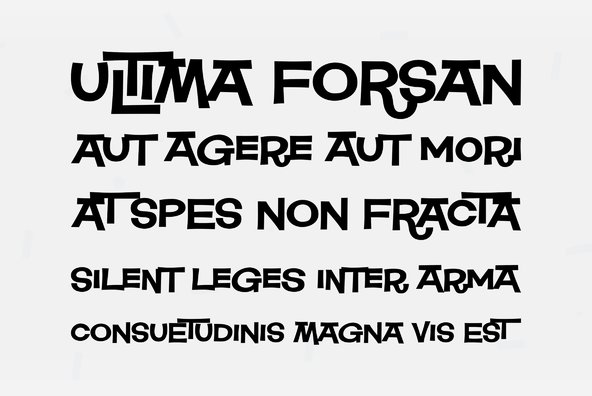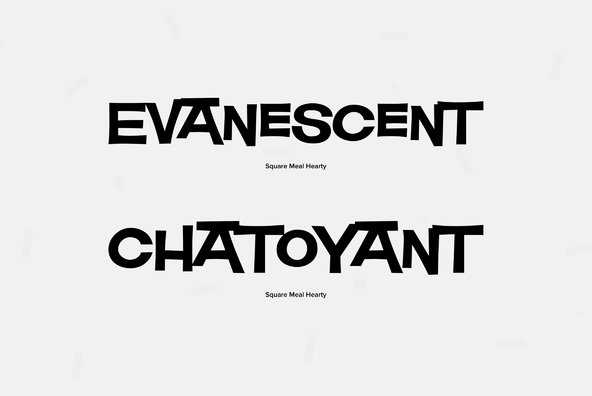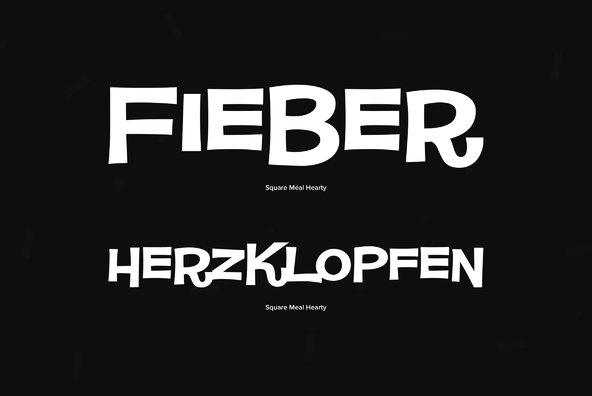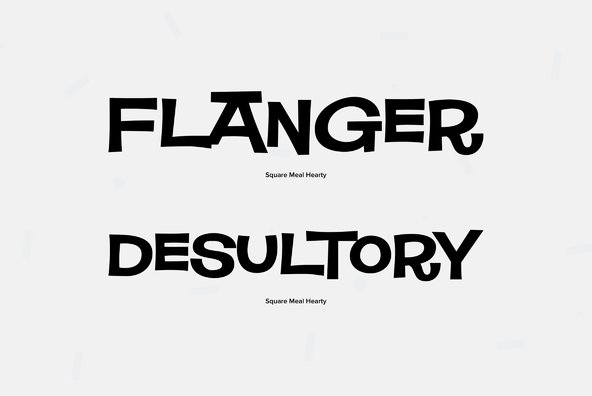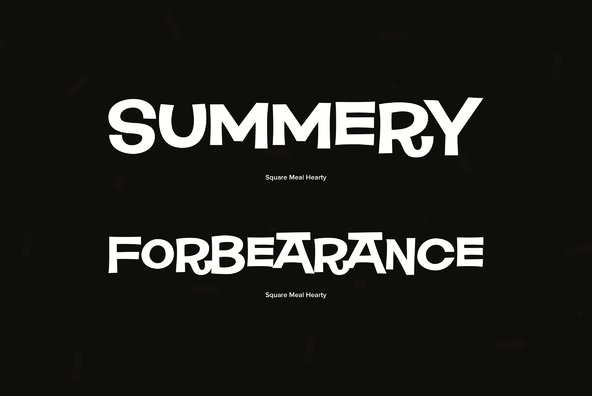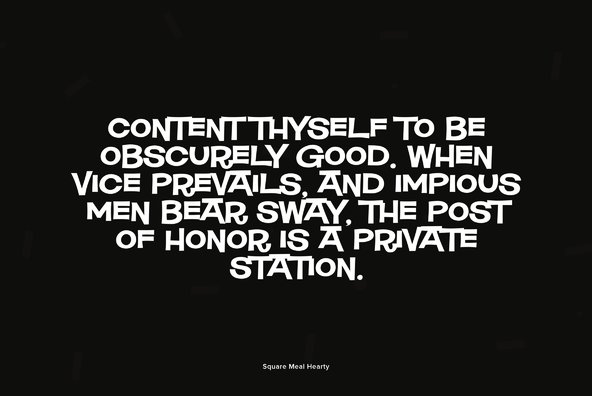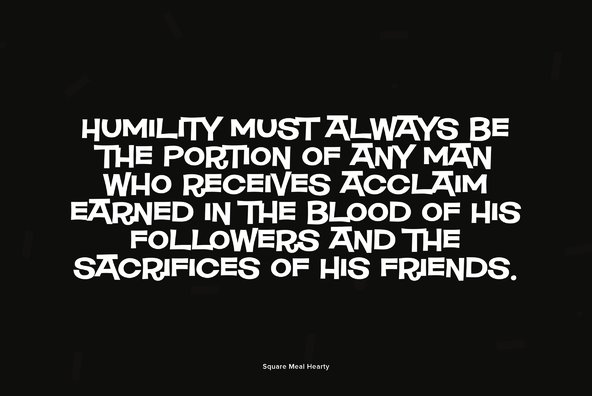
Square Meal Hearty
If Square Meal wasn't enough to whet your appetite, then strap on that feedbag and dive into Square Meal Hearty! This casual interlocking sans-serif has all the trappings!